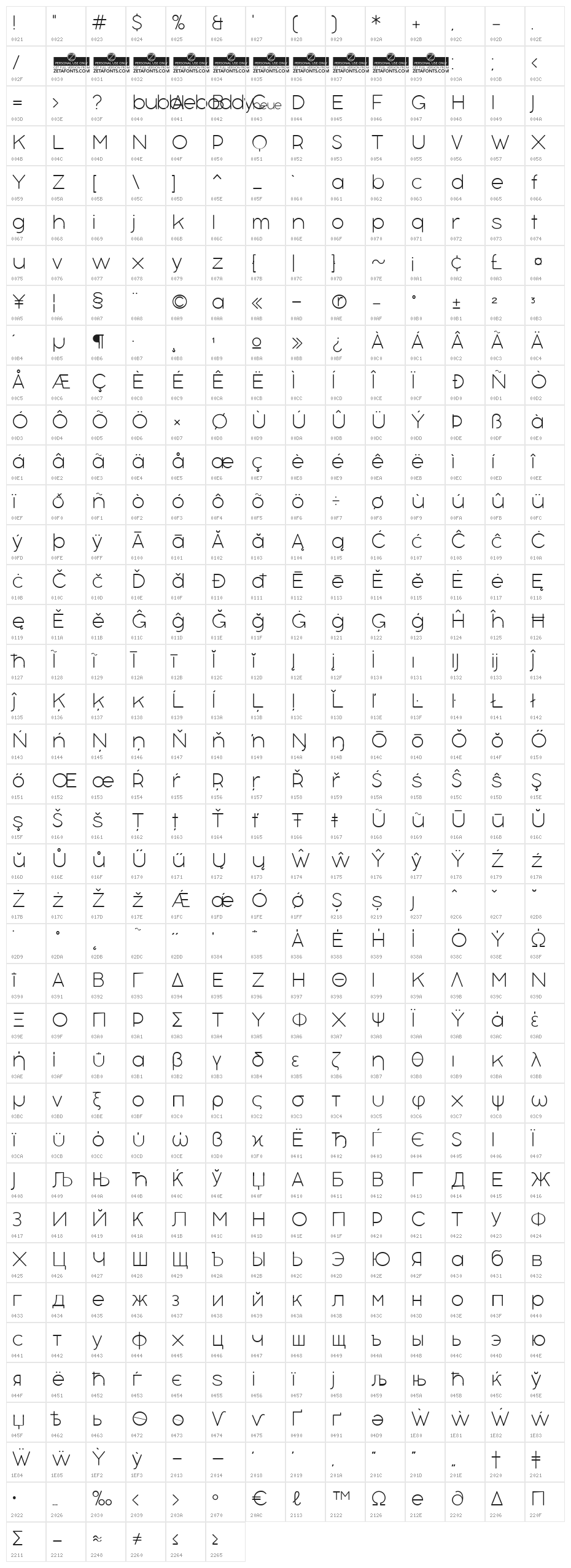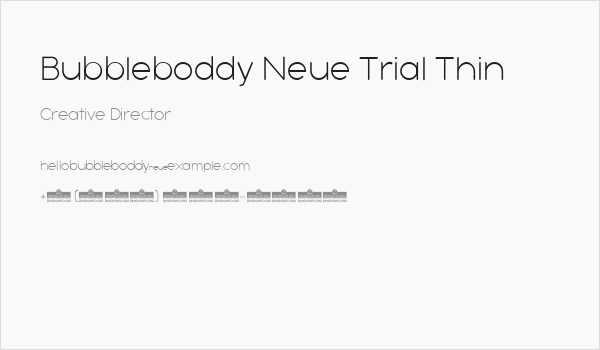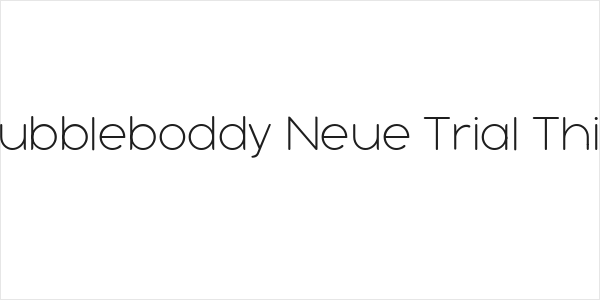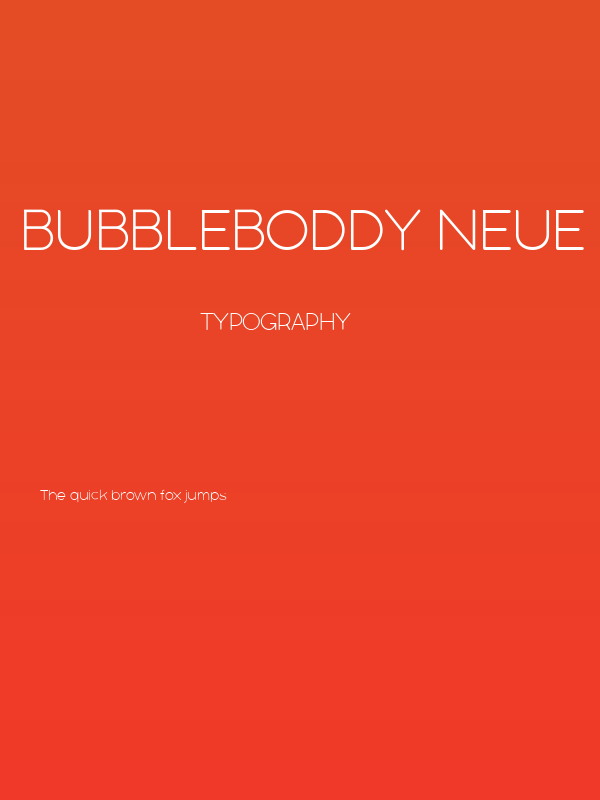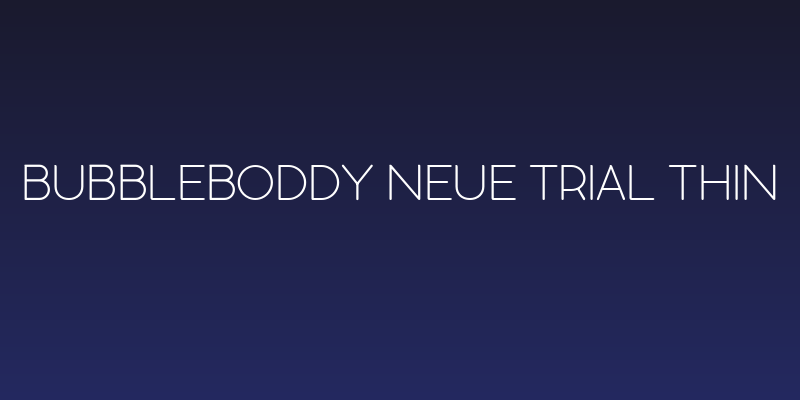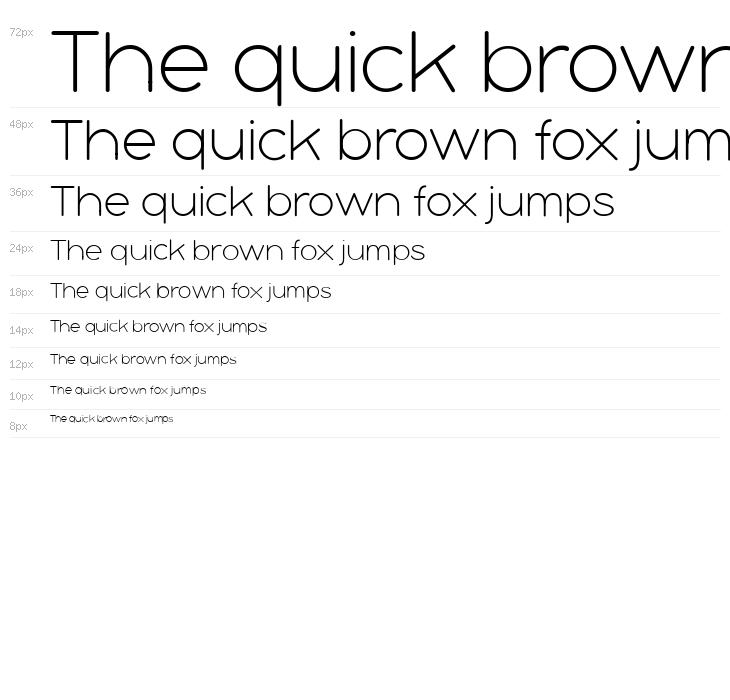
Bubbleboddy Neue Trial Thin Font
Bubbleboddy Neue Trial Thin Description
This font features a clean, modern aesthetic with rounded edges and a thin weight, giving it a sleek and contemporary look. The characters are evenly spaced, contributing to a balanced and harmonious appearance. Its geometric shapes and smooth curves make it highly legible, suitable for both digital and print media. The font's minimalist design is versatile, allowing it to be used in a variety of contexts, from branding to editorial design. Its simplicity and elegance make it an excellent choice for projects that require a modern and professional touch.
| Proposed Projects | Ideal for branding, editorial design, digital interfaces, and minimalist posters. |